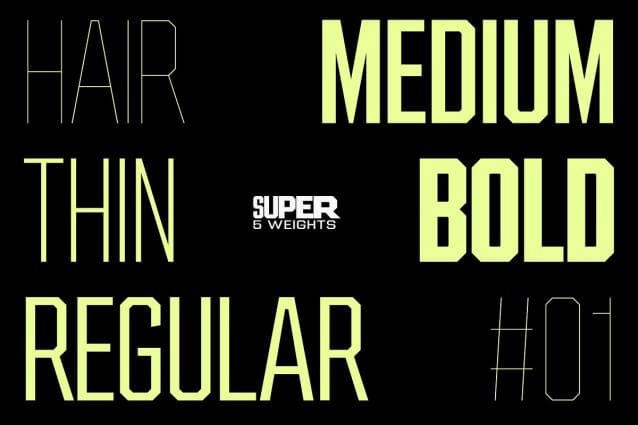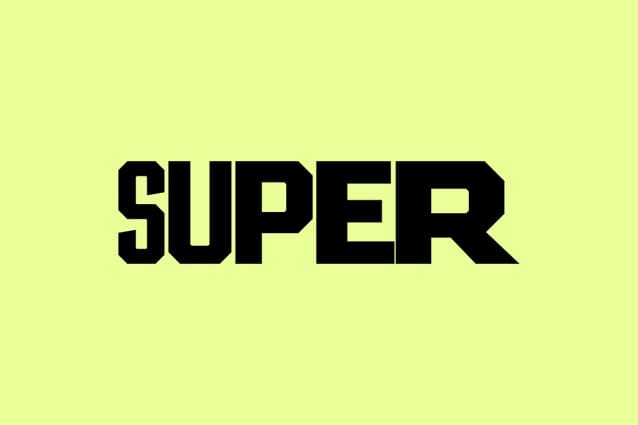
SF Super Font Family
SF Super Font Family is a bold and modern athletic font designed to bring energy and impact to your sports-related projects. Perfect for team logos, sports branding, and athletic apparel design, this versatile sports typeface captures the essence of competition and victory.
Ideal for creating eye-catching posters for sports events, SF Super stands out with its strong, stencil-like characters. Whether you’re designing for a college sports team, creating a professional athletic brand, or simply looking for a dynamic font to elevate your projects, it is your go-to choice.